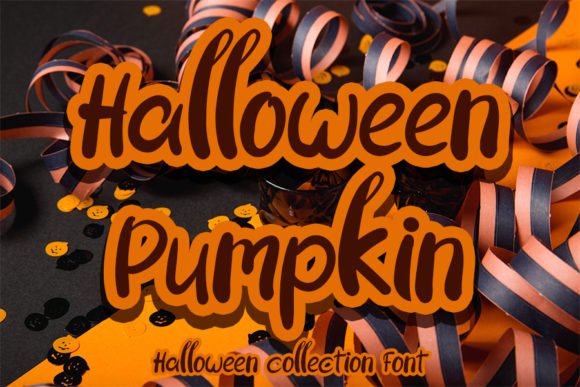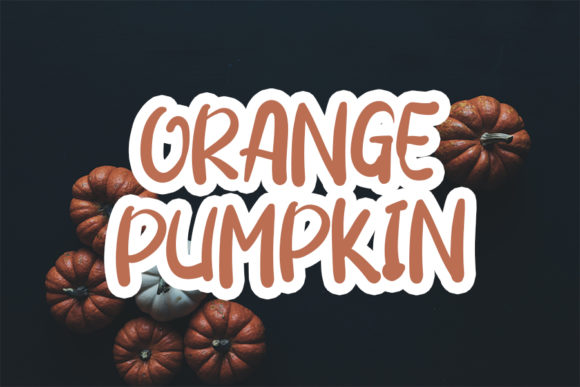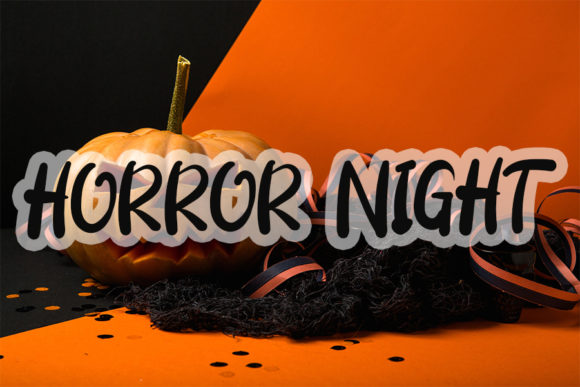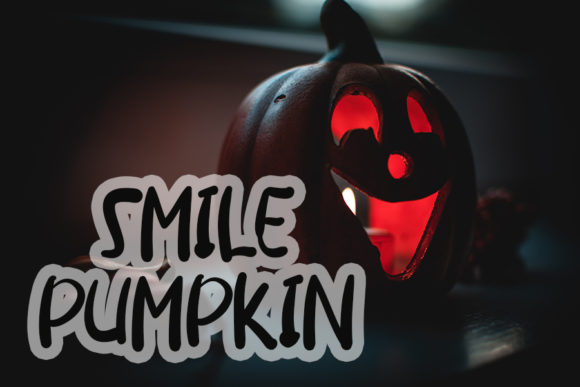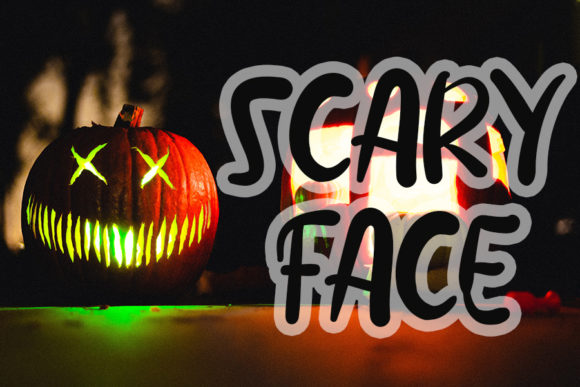
Halloween Pumpkin Font
About Halloween Pumpkin Font
Halloween Pumpkin is a delicate, elegant and flowing handwritten font. It has beautiful and well balanced characters and as a result, it matches a wide pool of designs. Add it to your most creative ideas and notice how it makes them come alive!